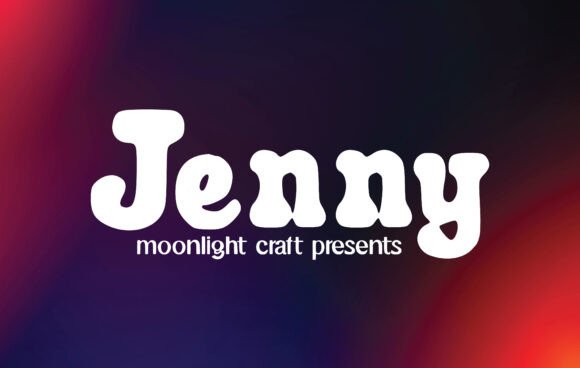
Discover the Versatility of Jenny Font: Elevate Your Creative Projects
In the world of typography, fonts play a crucial role in conveying messages, expressing emotions, and creating visual identities. Among the numerous fonts available, Jenny Font stands out as a true favorite, designed to take your creative ideas to new heights. This comprehensive article will delve into the features, benefits, and applications of Jenny Font, exploring its potential to enhance your designs and make them more engaging.
The Design and Features of Jenny Font
Jenny Font is crafted with legibility and versatility in mind, making it an excellent choice for various design projects. Its clean and modern aesthetic ensures that it looks great as both title and body text, allowing you to maintain consistency throughout your work.
The font’s design is characterized by:
- Clean Lines: Jenny Font features clean lines that provide a crisp and clear appearance, making it easy to read and understand.
- Modern Aesthetic: The font’s modern aesthetic ensures that your designs look contemporary and visually appealing.
- Legibility: Jenny Font is optimized for legibility, making it perfect for body text and ensuring that your message is conveyed effectively.
The Benefits of Using Jenny Font
Jenny Font offers numerous benefits that make it an ideal choice for designers, artists, and creatives. Some of the key advantages include:
- Versatility: Jenny Font can be used for a wide range of design projects, from magazine headlines to social media graphics, t-shirts, and wedding invitations.
- Consistency: The font’s clean and modern design ensures that your work looks consistent, regardless of the application.
- Legibility: Jenny Font’s legibility makes it perfect for body text, ensuring that your message is conveyed effectively.
- Creativity: The font’s unique design elements provide a creative foundation for your projects, allowing you to express yourself and bring your ideas to life.
Applications of Jenny Font
Jenny Font’s versatility makes it suitable for various design projects, including:
Magazine Headlines
Jenny Font’s bold and modern design makes it perfect for magazine headlines, grabbing the reader’s attention and setting the tone for the article.
T-Shirts and Merchandise
The font’s clean and stylish design ensures that your message or logo looks great on t-shirts and other merchandise, making it a popular choice for designers and brands.
Social Media Graphics
Jenny Font’s legibility and modern aesthetic make it an excellent choice for social media graphics, helping you create engaging and shareable content.
Wedding Invitations and Cards
The font’s elegant and sophisticated design makes it perfect for wedding invitations, cards, and other formal correspondence.
Branding and Identity
Jenny Font’s unique design elements provide a solid foundation for branding and identity projects, helping you create a consistent visual identity for your business or organization.
Tips for Using Jenny Font Effectively
To get the most out of Jenny Font, consider the following tips:
- Experiment with Font Sizes: Jenny Font looks great in various font sizes, from large headlines to smaller body text.
- Play with Colors: The font’s clean design allows it to work well with different colors and color combinations.
- Mix and Match with Other Fonts: Jenny Font pairs well with other fonts, allowing you to create unique and visually appealing typography.
- Pay Attention to Kerning and Spacing: Adjusting the kerning and spacing can enhance the font’s legibility and overall appearance.
Jenny Font is a versatile and modern font designed to elevate your creative projects. Its clean lines, legibility, and unique design elements make it perfect for various applications, from magazine headlines to social media graphics, t-shirts, and wedding invitations. By understanding the features, benefits, and applications of Jenny Font, you can unlock its full potential and take your designs to new heights.
Whether you’re a designer, artist, or creative, Jenny Font is an excellent addition to your typography arsenal. Its ability to convey messages effectively, create visual identities, and add a touch of elegance to your work makes it a valuable resource for anyone looking to enhance their designs.
In conclusion, Jenny Font is a true favorite among designers and creatives, offering a unique blend of style, legibility, and versatility. By incorporating this font into your design workflow, you’ll be able to create stunning visual content that engages and inspires your audience.